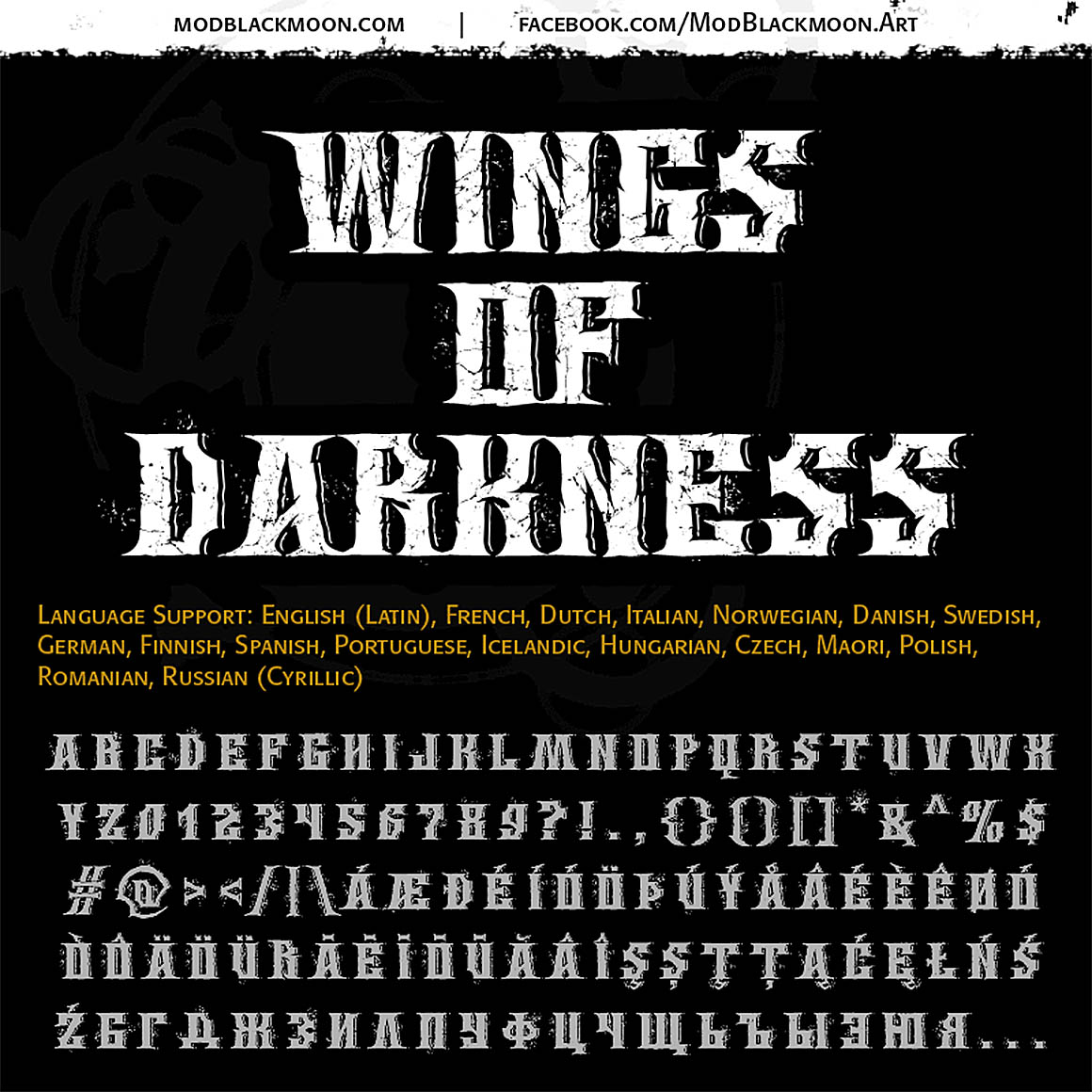
Wings Of Darkness – Free Font
This cool vintage style grunge font is from Irina ModBlackmoon. Great for your new creative projects. Download and enjoy 😉